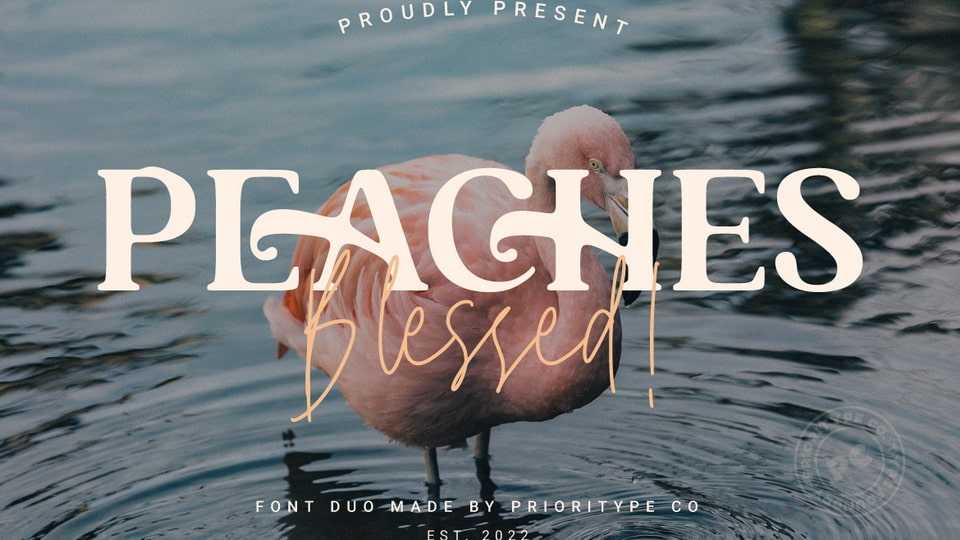
Peaches Blessed Font › Fontesk – Download Grátis
Download Peaches Blessed font, a luxurious and sophisticated typeface that includes Serif and Script. Incredibly versatile, Peaches Blessed font fits a wide range of designs, elevating them to the highest levels.